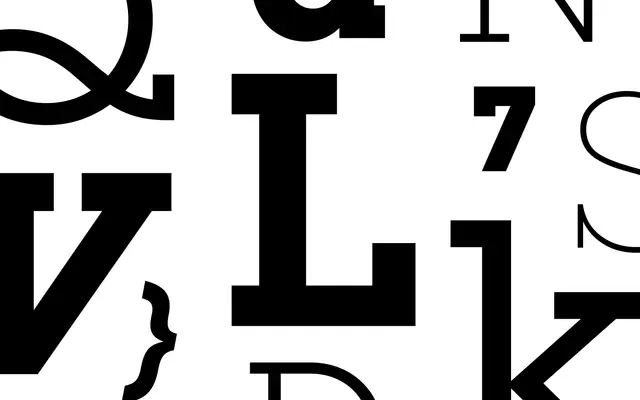
Lubalin Recast Serif
A geometric slab serif by Yingtong Tan and Angel Kwong, recasting Herb Lubalin's 1970s slab as a partner to Lubalin Recast Sans.
A geometric slab serif by Yingtong Tan and Angel Kwong that revives Herb Lubalin's 1970s slab and partners it with Lubalin Recast Sans. The variable font carries a Weight axis from Hairline to Black with matching italics, plus a Tracking axis and the family's signature ligatures, swash alternates and forwards and backwards slants. Reach for it on editorial covers, fashion mastheads, packaging and posters where you want the warmth and quirk of seventies American display type.
Dalton Maag describe Lubalin Recast Serif as a fresh take on a classic geometric slab serif designed in the 1970s by Herb Lubalin to complement his existing sans, updated with an extensive Weight axis and the original's unusual ligatures and alternates.